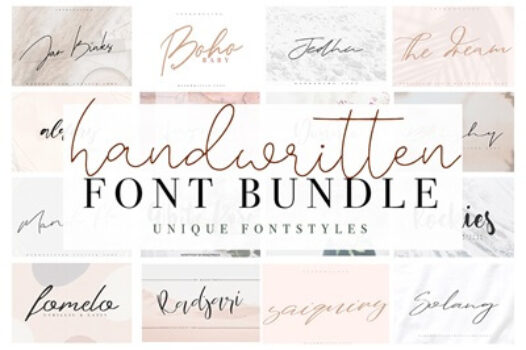
What is the Handwritten Font Bundle?
The Handwritten Font Bundle is a beautiful font bundle that brings together 66 unique and creative typefaces. It includes a mix of calligraphy, signature, brush, layered, and vintage styles, perfect for adding a personal touch to your designs. With 10 fonts offering full Cyrillic and multilingual support, this bundle makes it easy to create stylish text for branding, wedding invitations, and craft projects.
Jolie – Regular